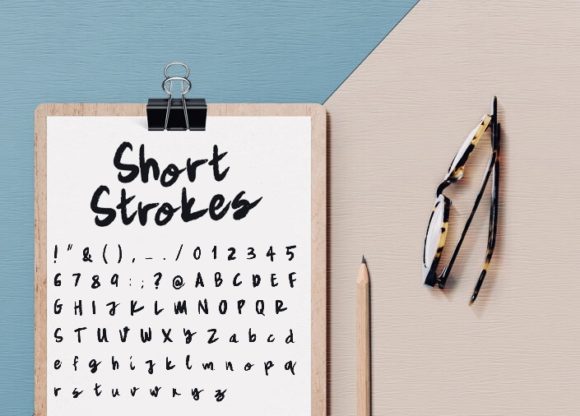
Short Strokes Font
About Short Strokes Font
Short Strokes is a handwritten script font featuring natural brushstrokes. Get inspired by its natural handmade appearance!